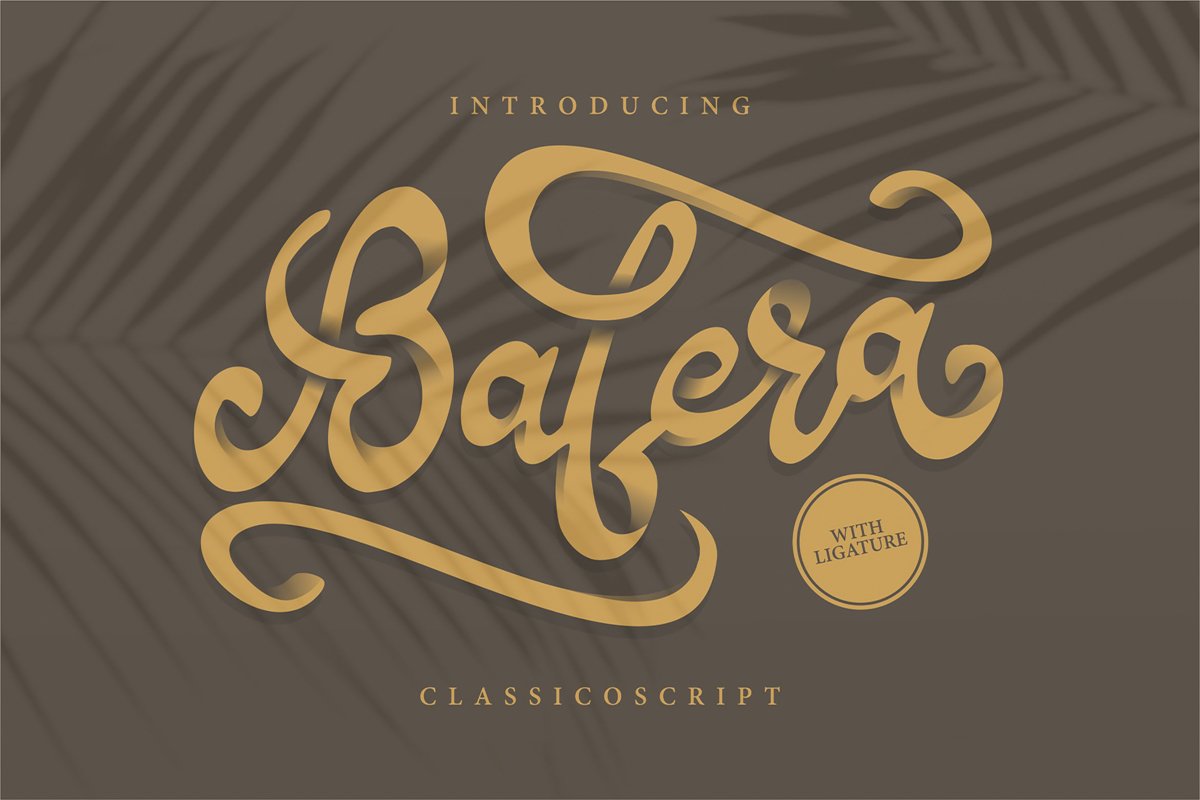
Bafera | Classico Script Font
Bafera
**Bafera | Classico Script Font** with a calligraphy style, So beautiful on invitation like greeting cards, branding materials, business cards, quotes, posters, and more!
* Tons of glyphs
* Alternates and Ligatures
* Punctional
* Fonts include **Multilingual Support**